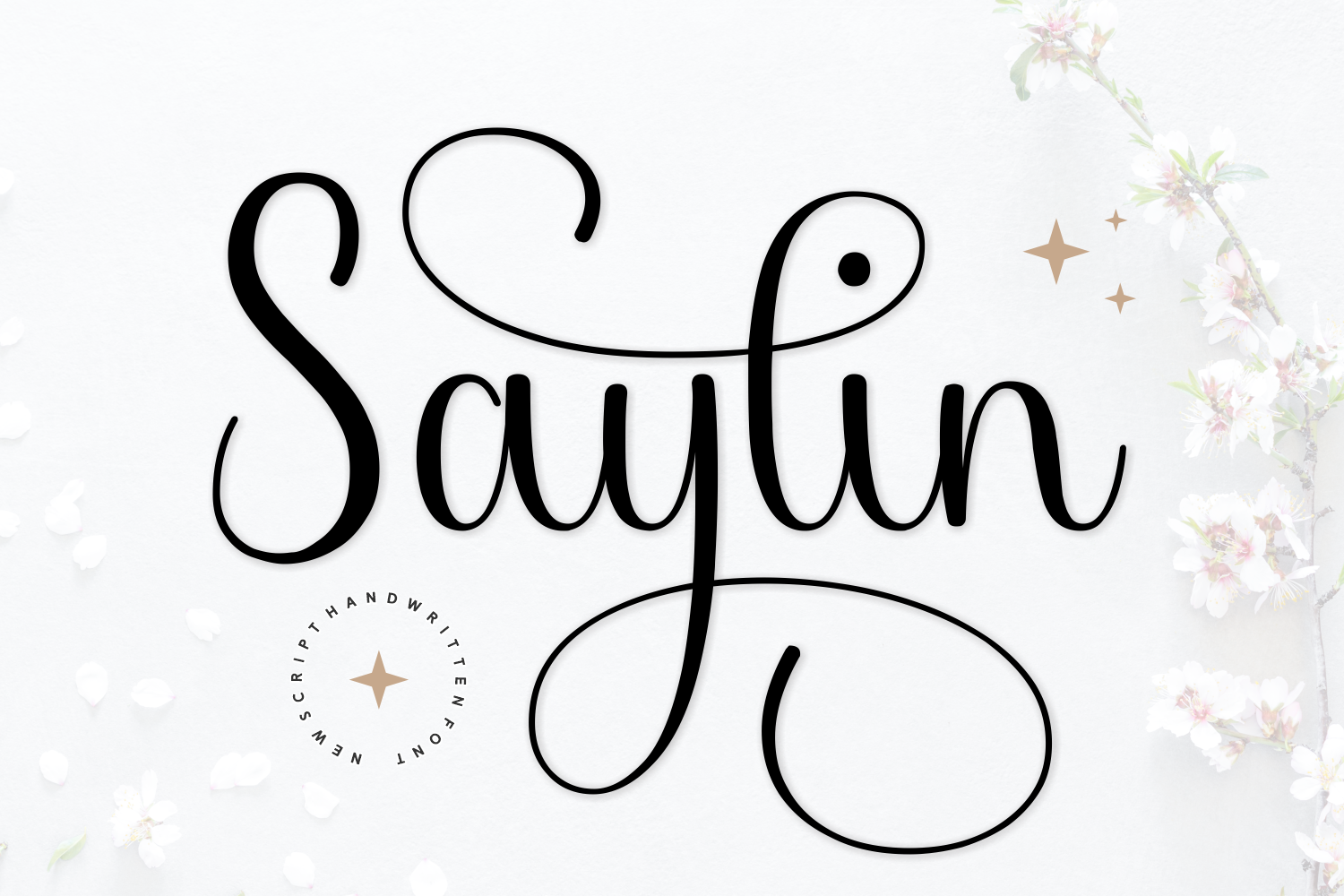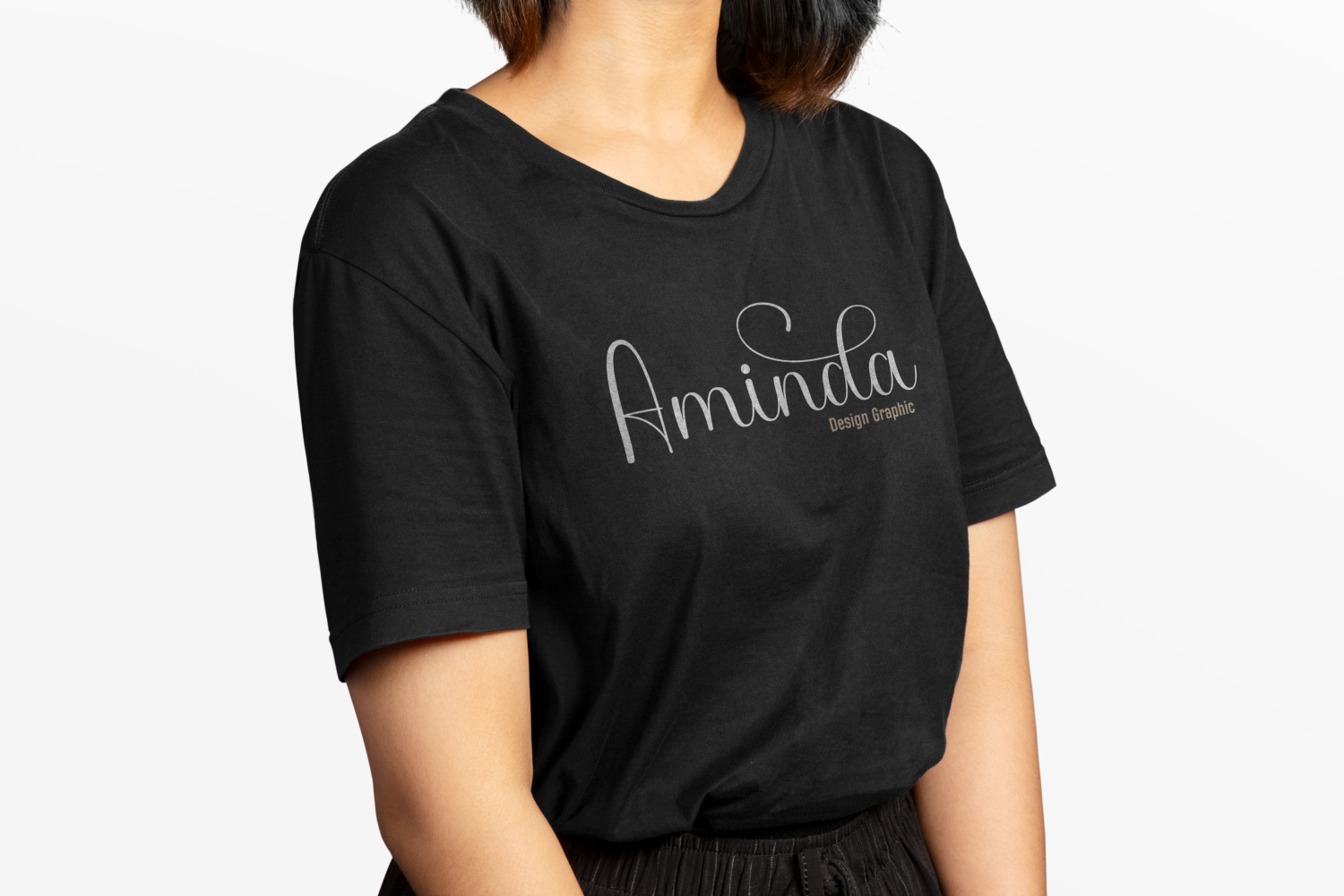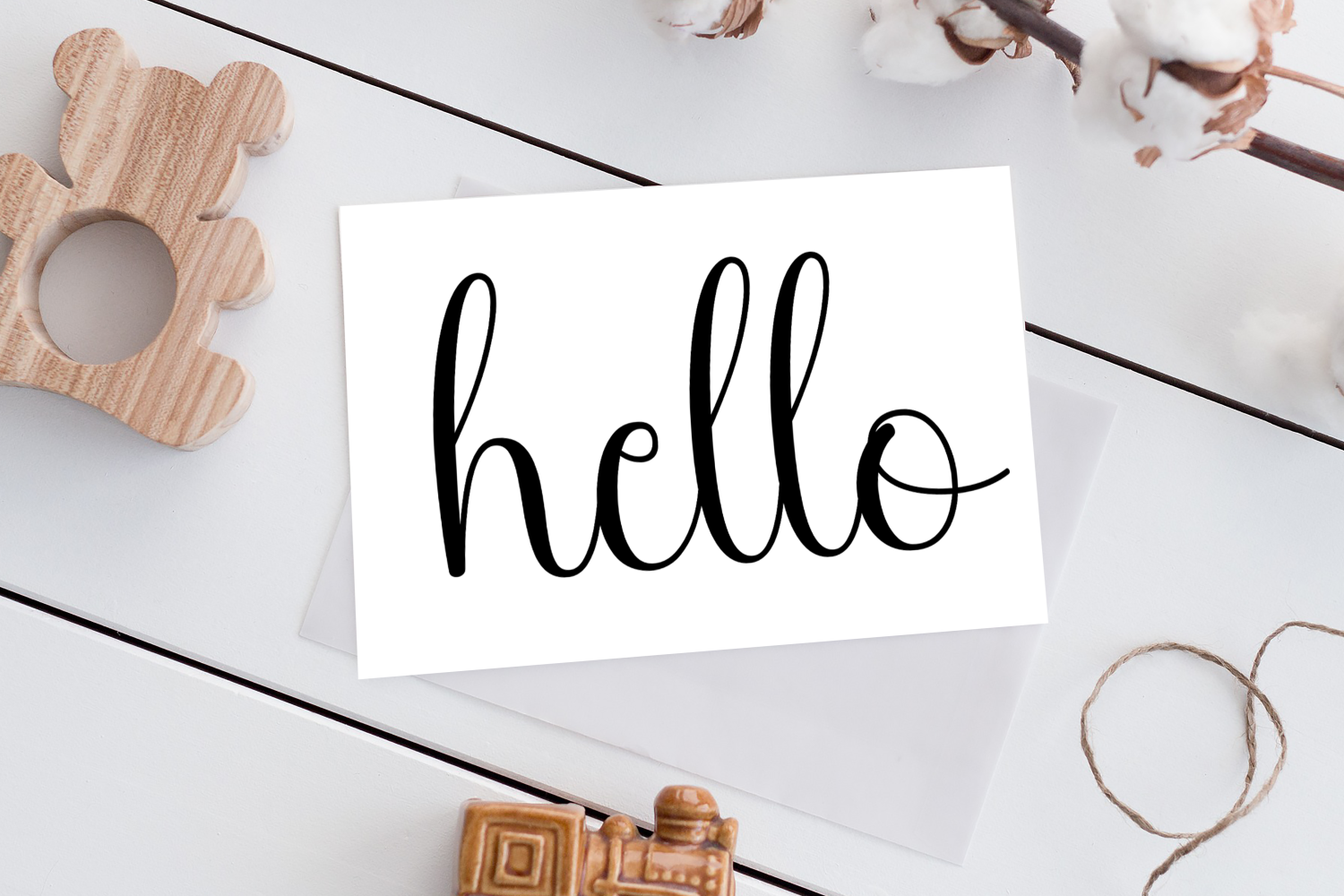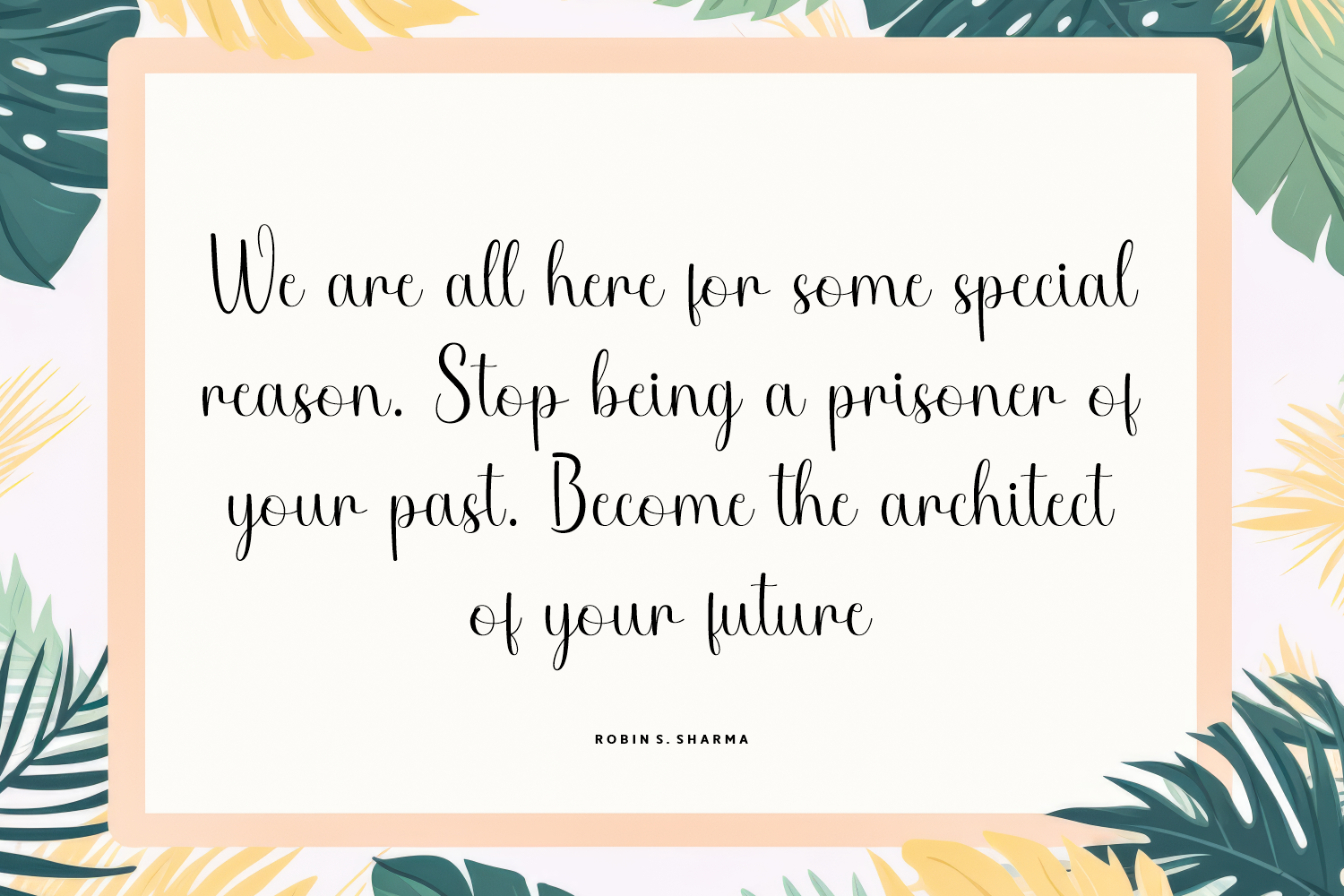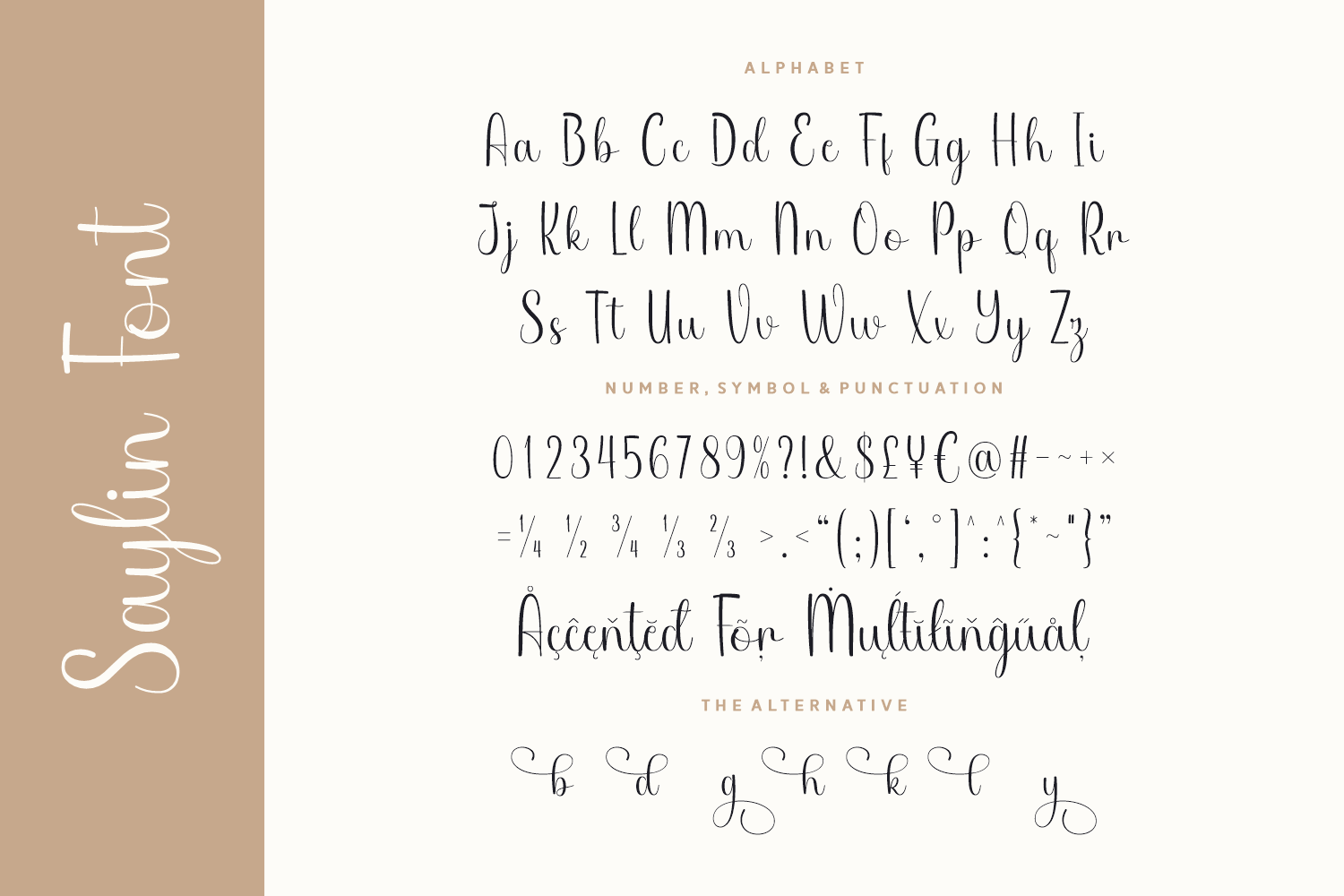
Saylin is a graceful handwritten script font that strikes the perfect balance between casual charm and refined elegance.
This versatile font comes with multilingual support and a range of alternates that let you customize your look with ease—making each design feel effortlessly tailored.